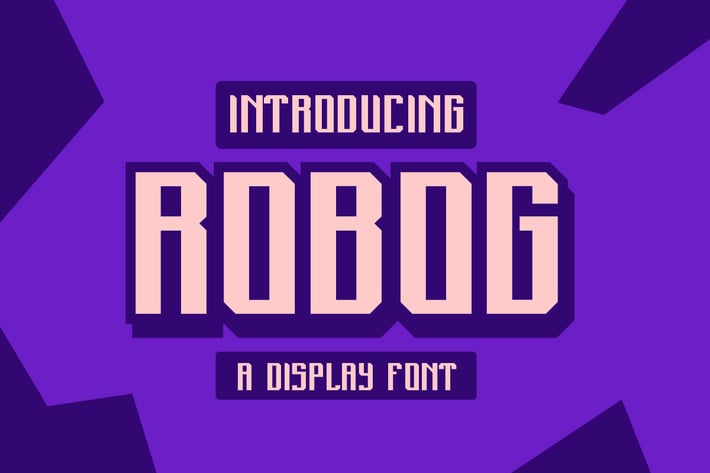
Robog a Display Font
Robog Display Font is perfect for most all aspects of graphic design, from creating a unique display layout, a quirky logo design and even long-form content. Download now and go get adventurous!